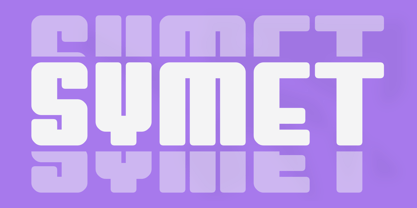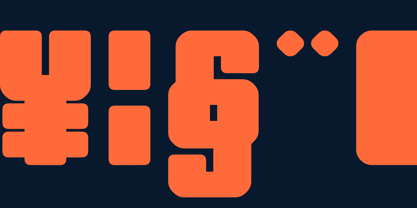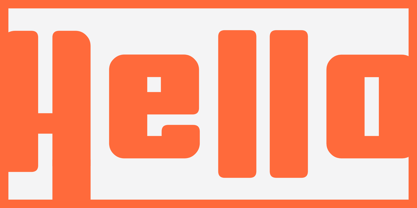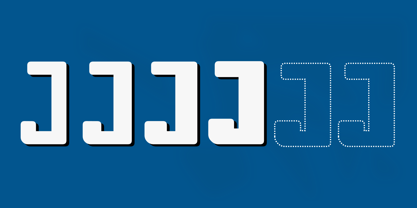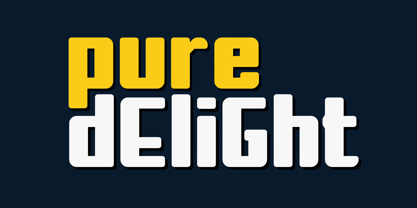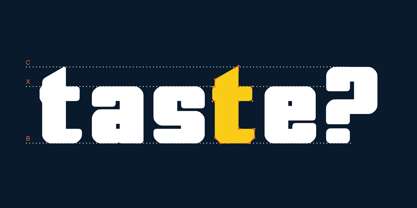
Symet Rounded
The Symet Rounded Font Family was designed by Glen Nyundu and published by RainBomb Studio. Symet Rounded contains 8 styles and family package options. More about this family
Symet Rounded is a bold geometric display typeface characterized by its symmetry and strength. With smooth corners and solid strokes, it is ideal for creating eye-catching headlines, logos, and experimental layouts. Transform your words into a striking visual statement with Symet Rounded. Features: - All letterforms are meticulously designed for impactful display use. - Geometric construction with perfectly symmetrical proportions. - Smooth, rounded cuts complemented by wide, solid strokes. - A bold weight that guarantees maximum visibility. - Multilingual support for enhanced versatility. Perfect for branding, web design, and editorial projects, Symet Rounded elevates ordinary text into a captivating visual experience. This typeface is not just about reading; it’s about making a statement that demands attention.
Symet Rounded